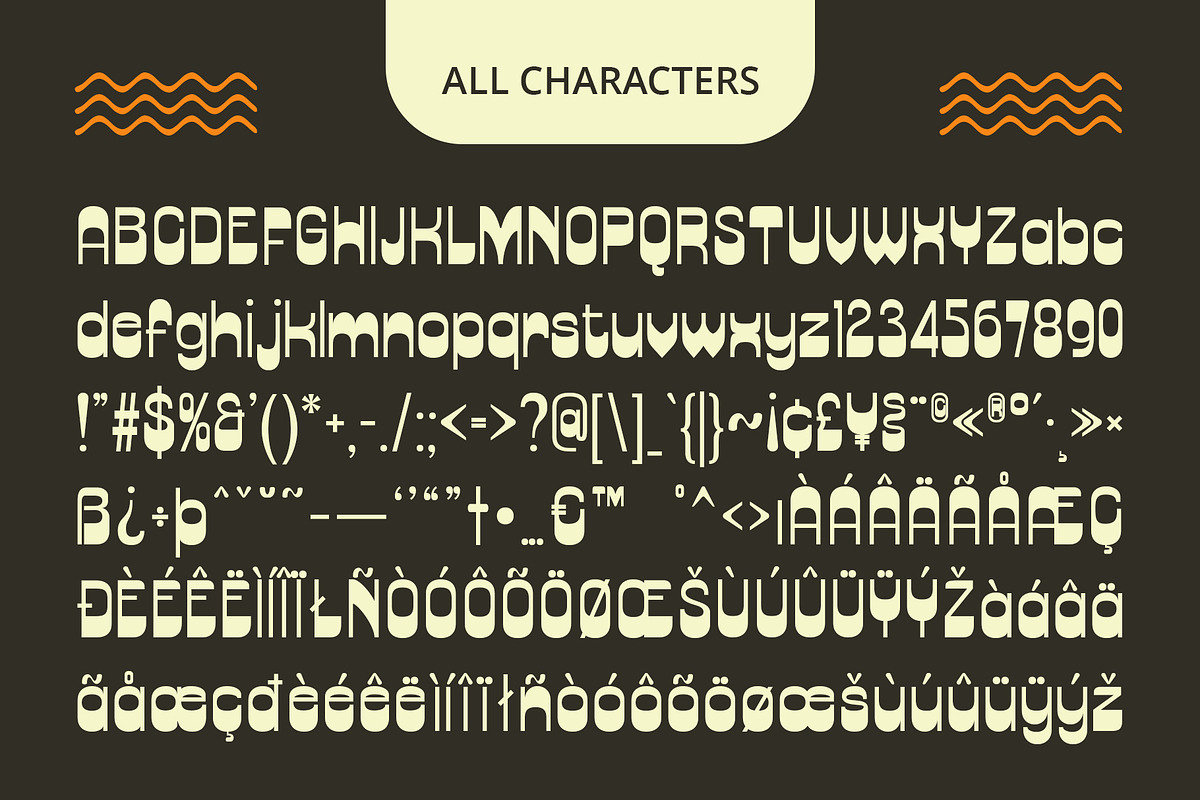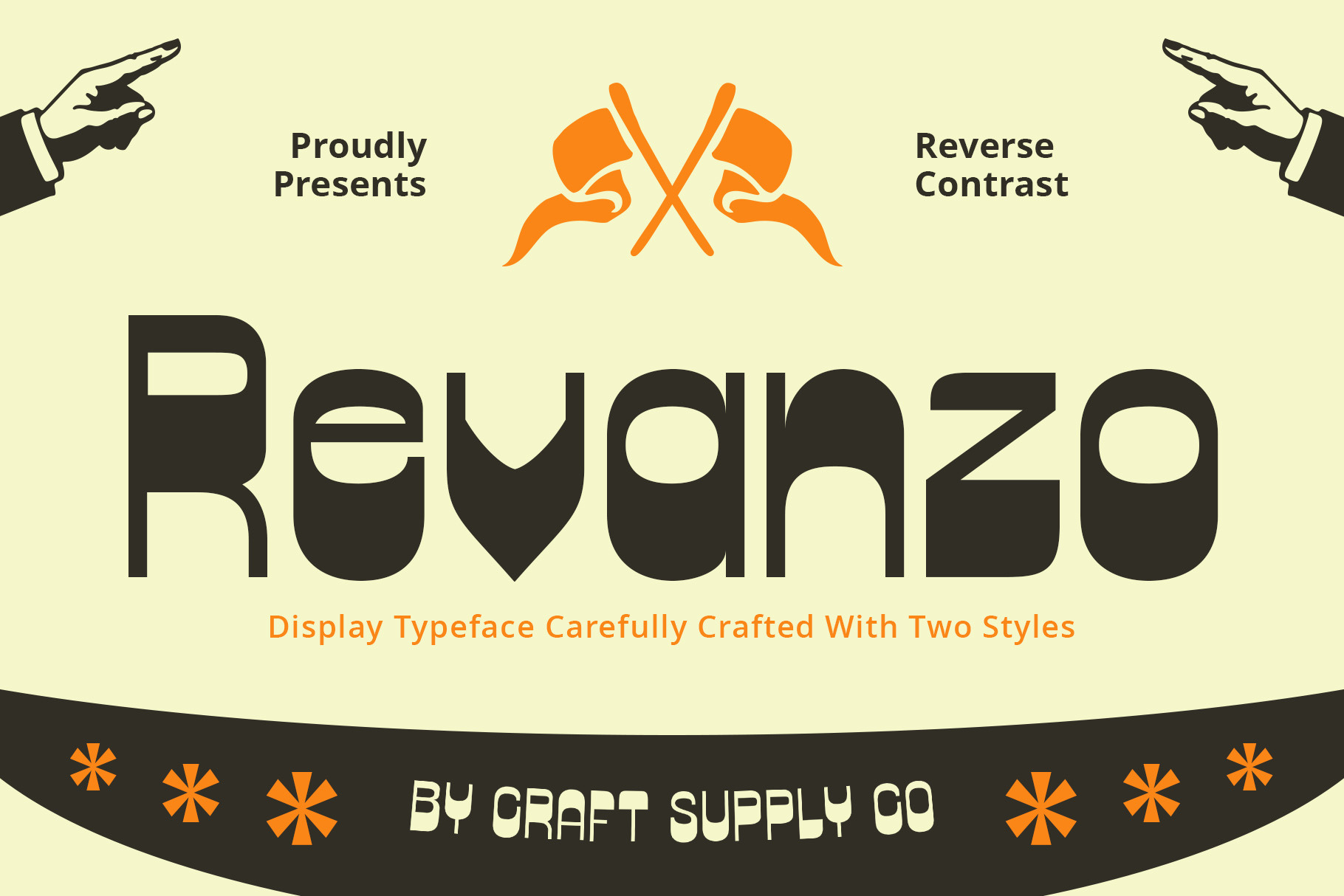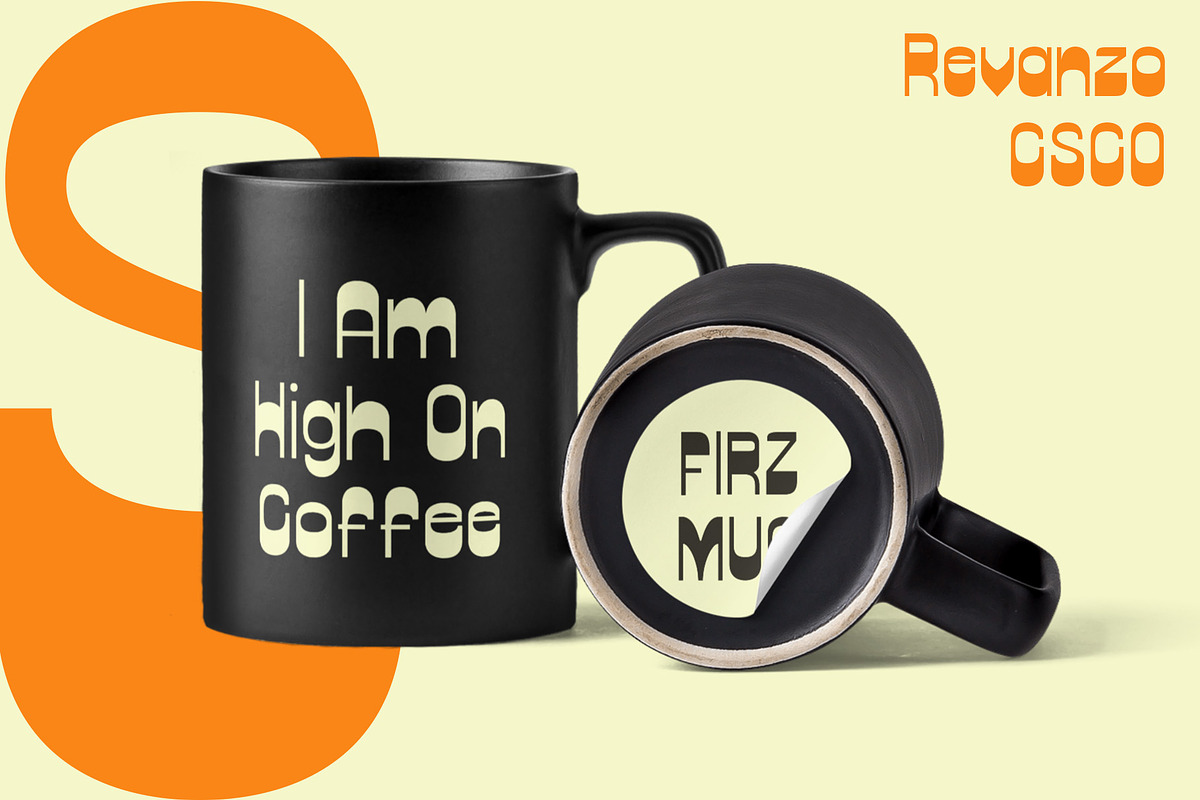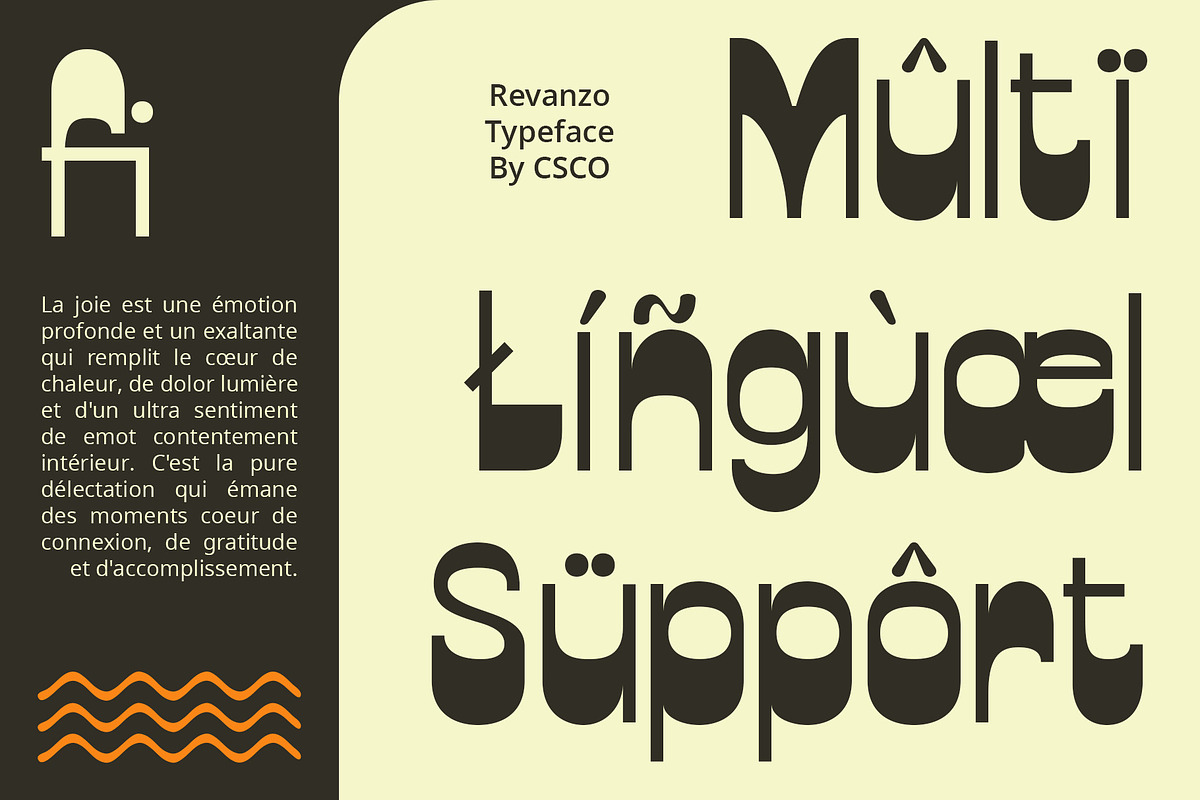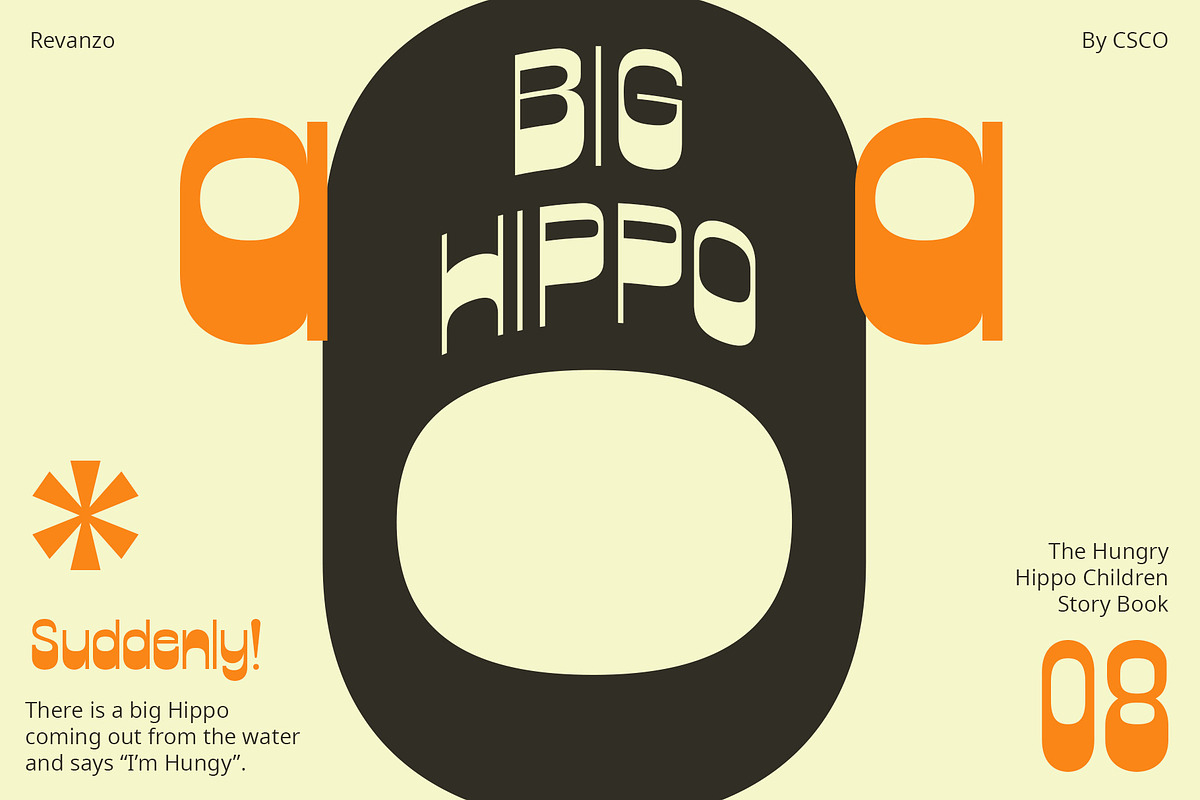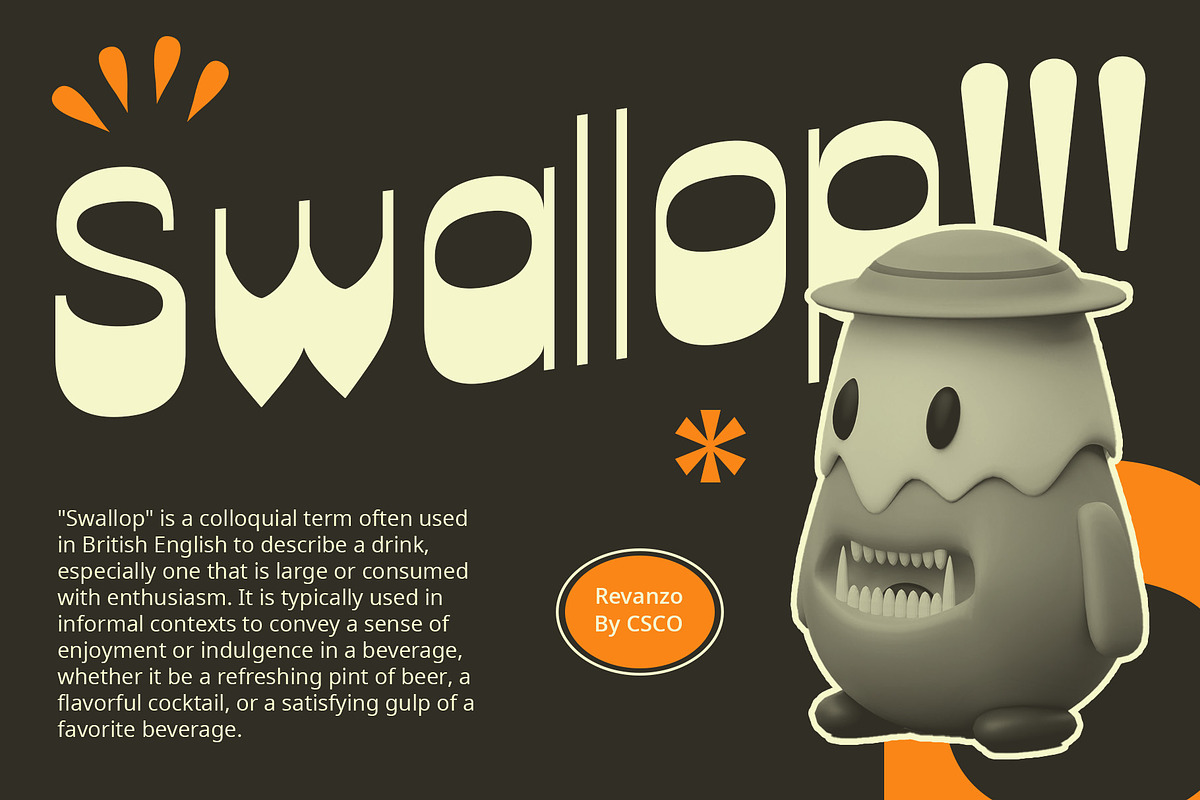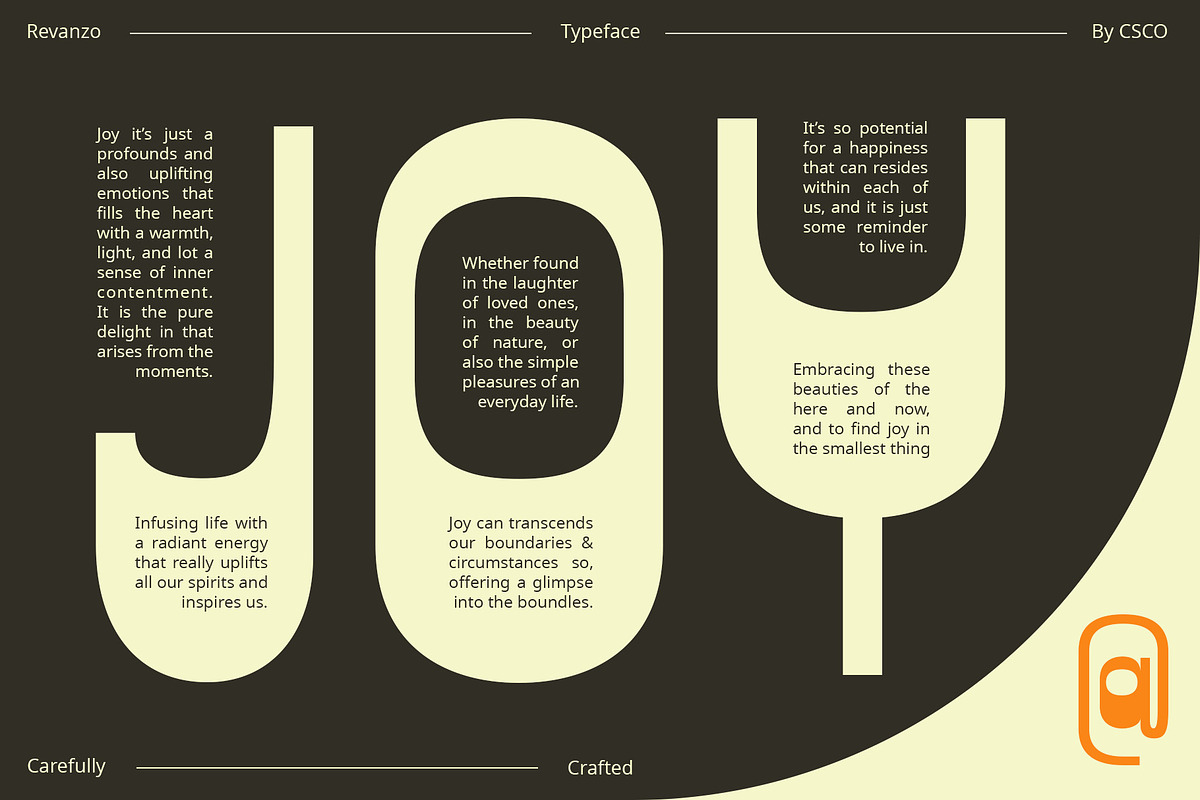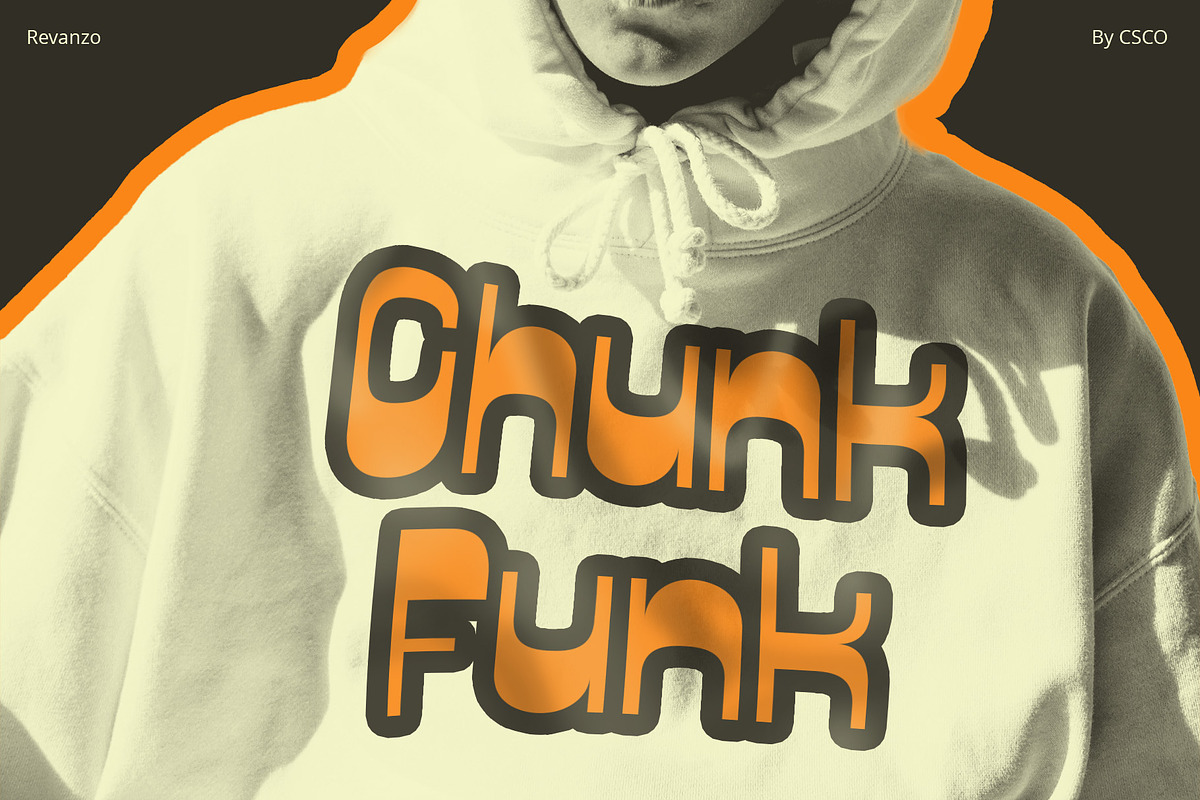
Revanzo – Reverse Contrast Font
Revanzo: The Retro Funkiness of a Reverse Contrast Font
Eye-Catching Retro Vibes Revanzo brings retro vibes to life with its funky, reverse contrast style. Designed to catch the eye, it’s perfect for attention-grabbing displays.
Unique Reverse Contrast Design With its reverse contrast design, Revanzo flips traditional typography on its head. Bold strokes and thin horizontals create a unique visual appeal.
Nostalgic Retro Nuances Experience a blast from the past with Revanzo’s nostalgic retro nuances. Its funky style evokes memories of the groovy days gone by.
Perfect for Eye-Catching Displays Revanzo is tailor-made for eye-catching displays that demand attention. Whether it’s posters, headlines, or branding, this font ensures your message stands out.
The Retro Reverse Contrast Font Revanzo Reverse Contrast Font boasts a funky retro style with its reverse contrast design. Ideal for eye-catching displays, it combines nostalgic nuances with a unique twist, ensuring your message gets noticed in style.
- Revanzo Regular
- Revanzo Italic